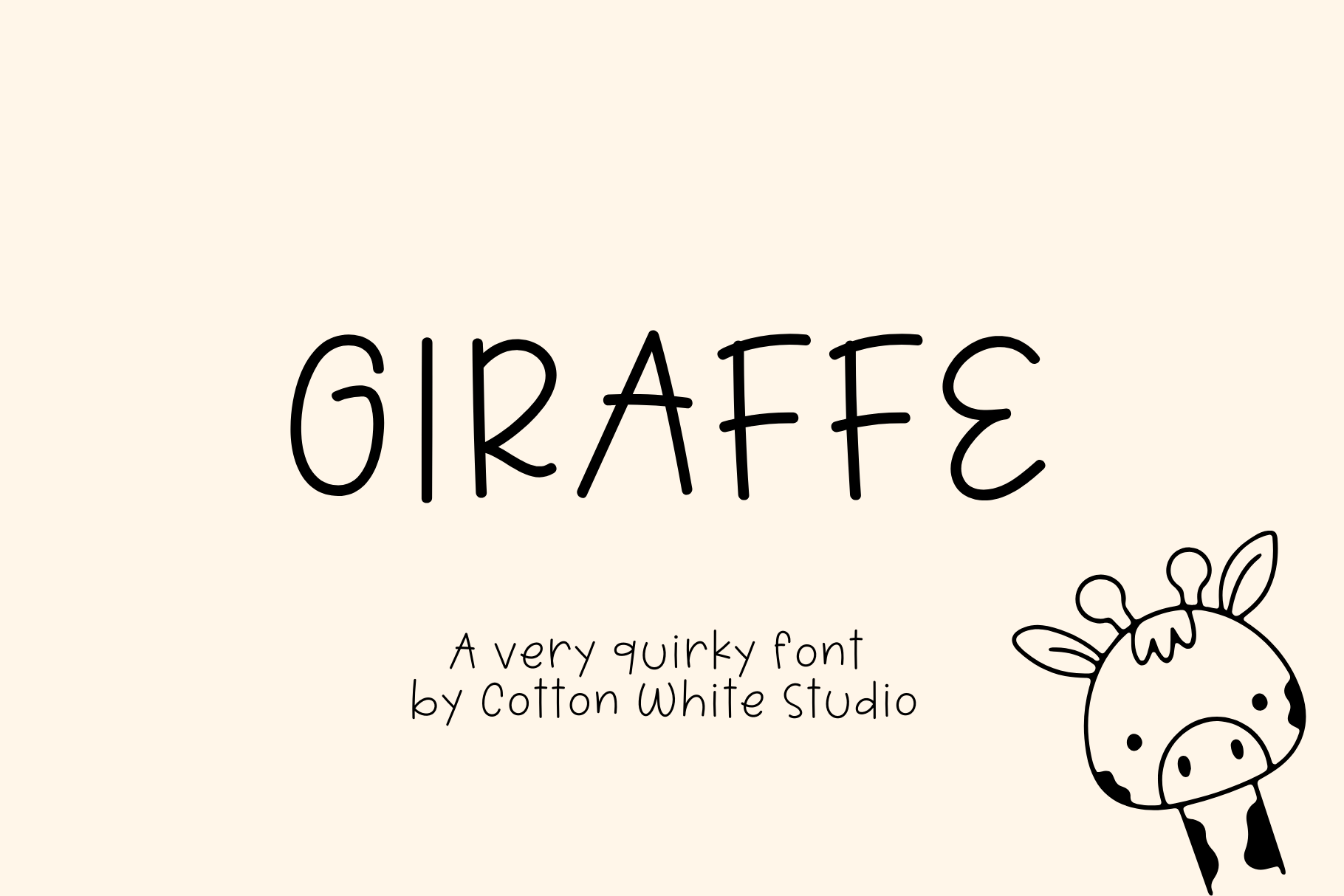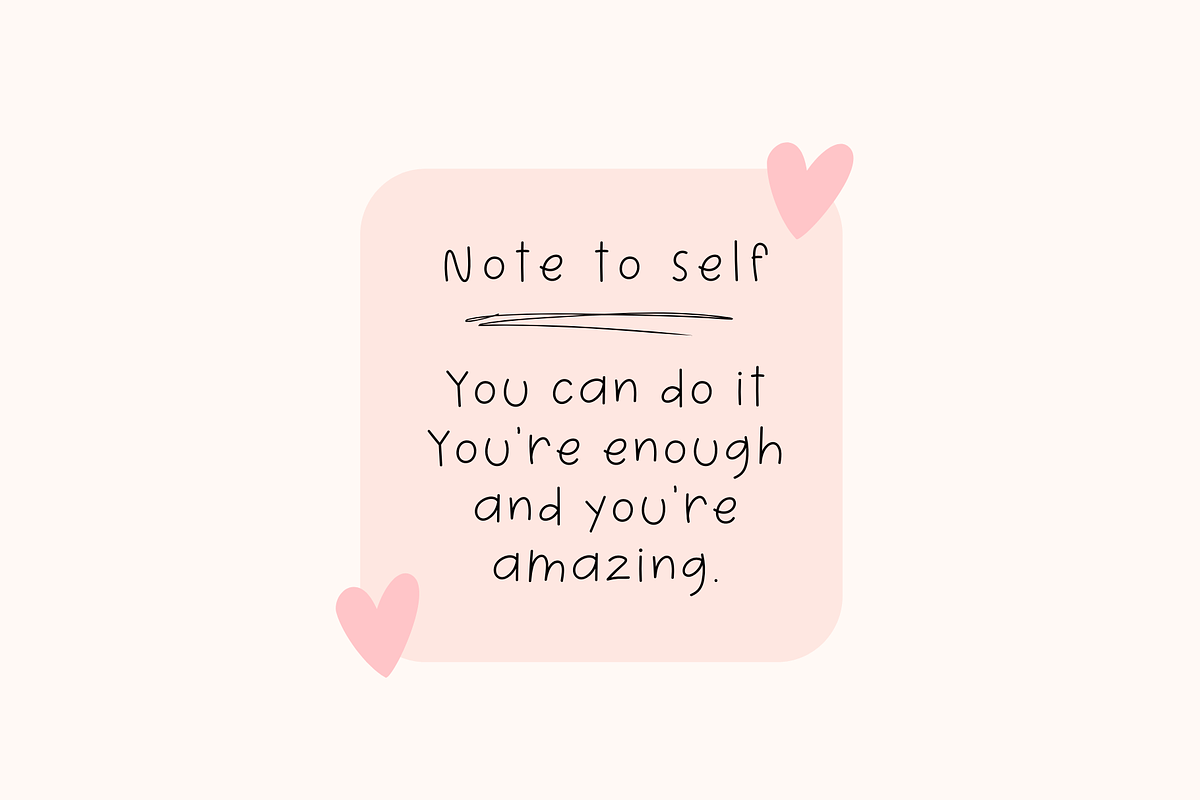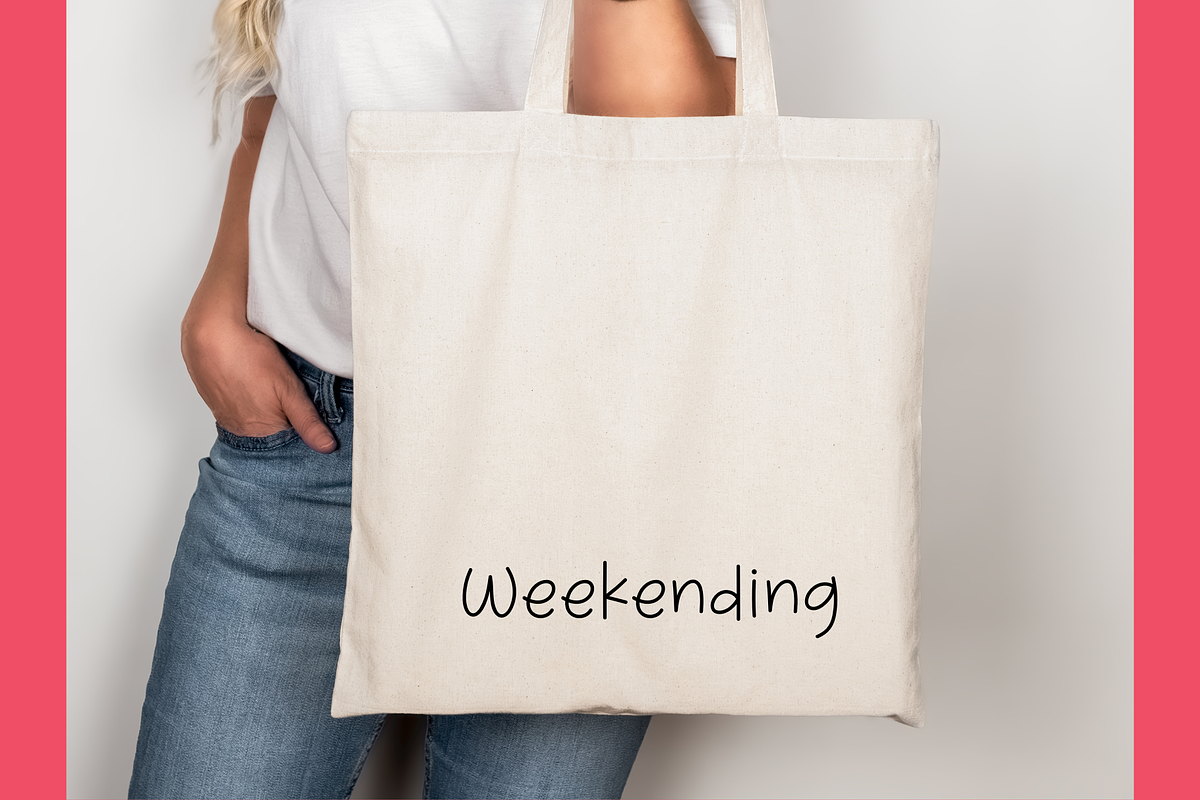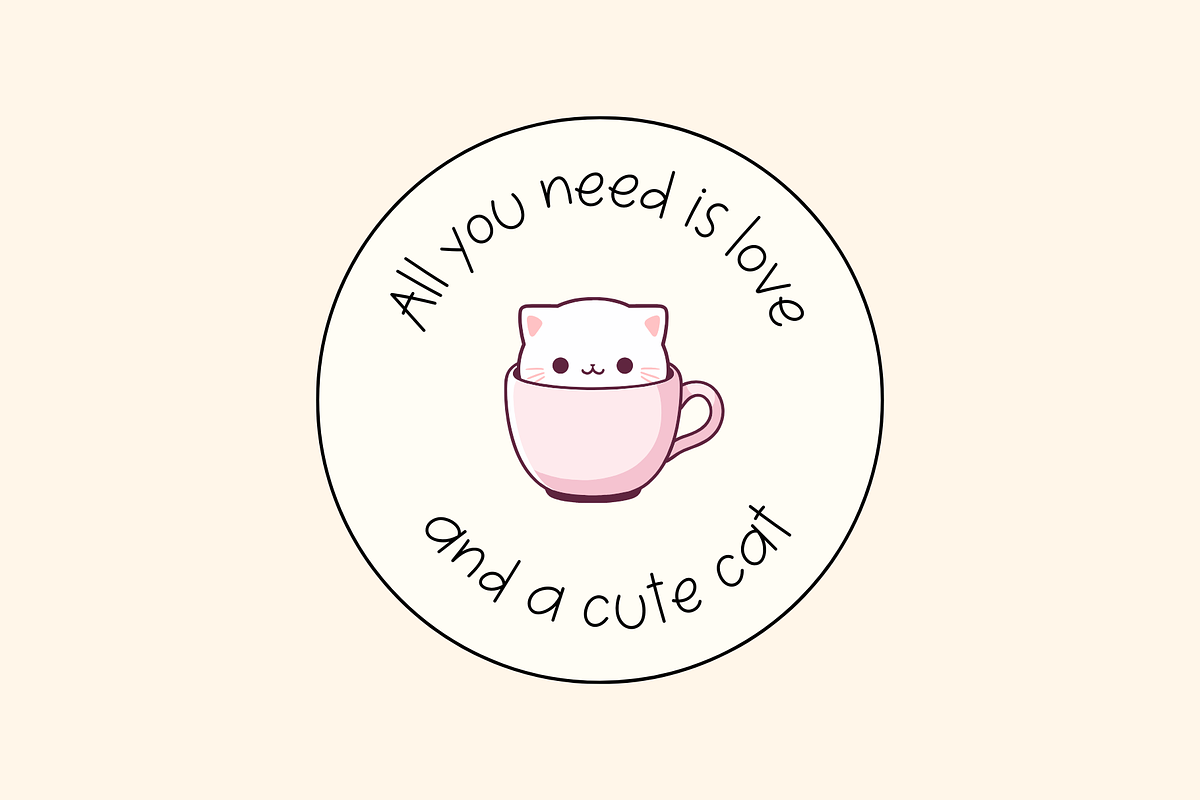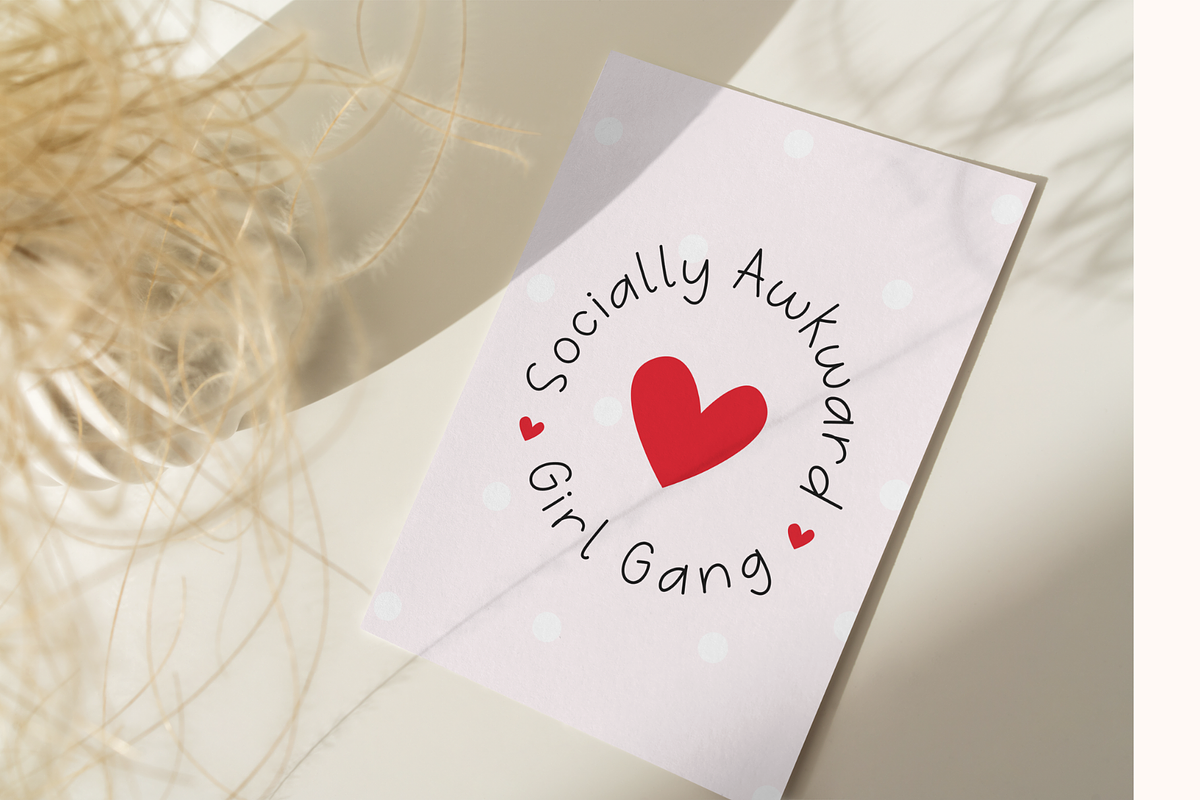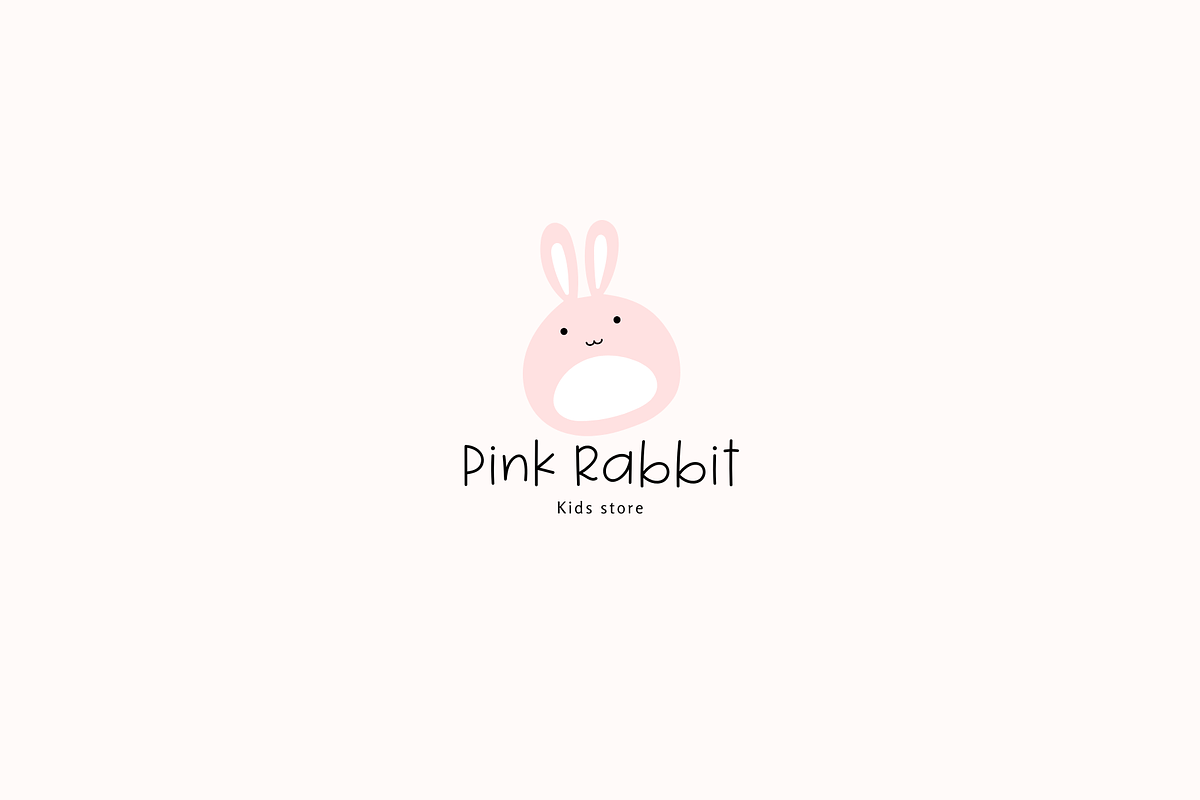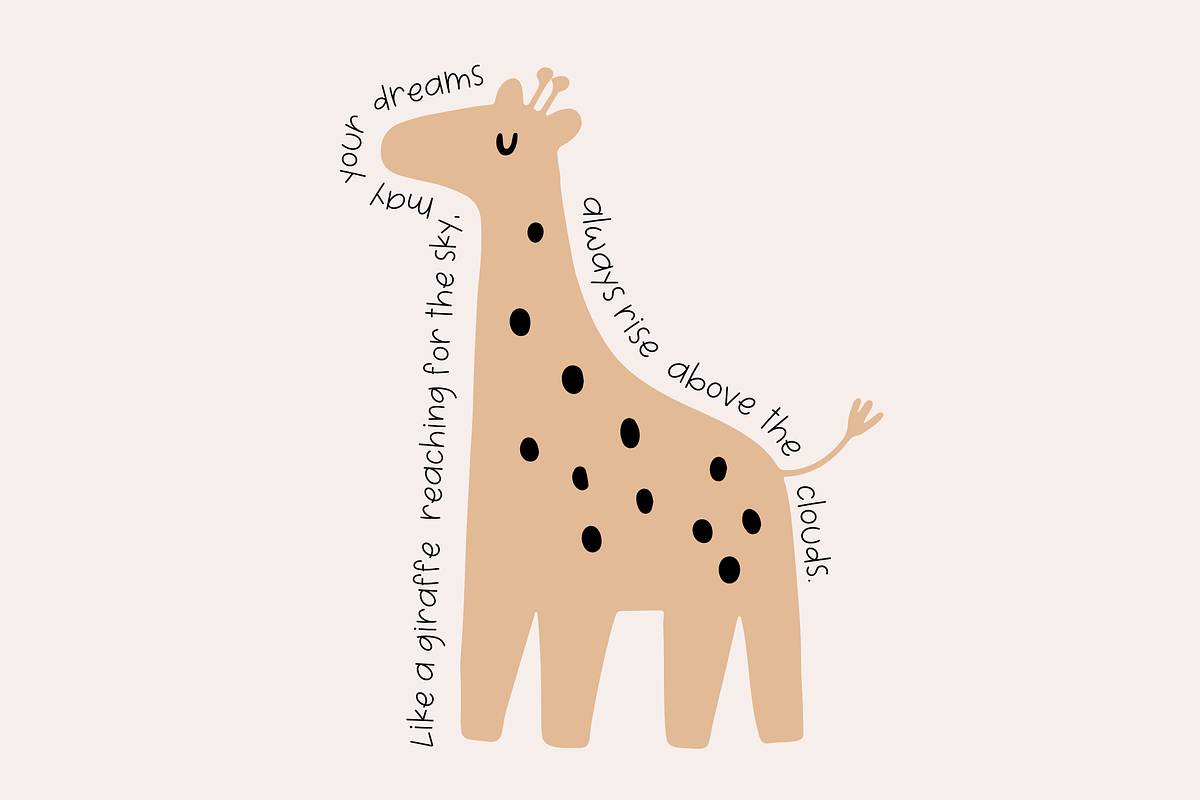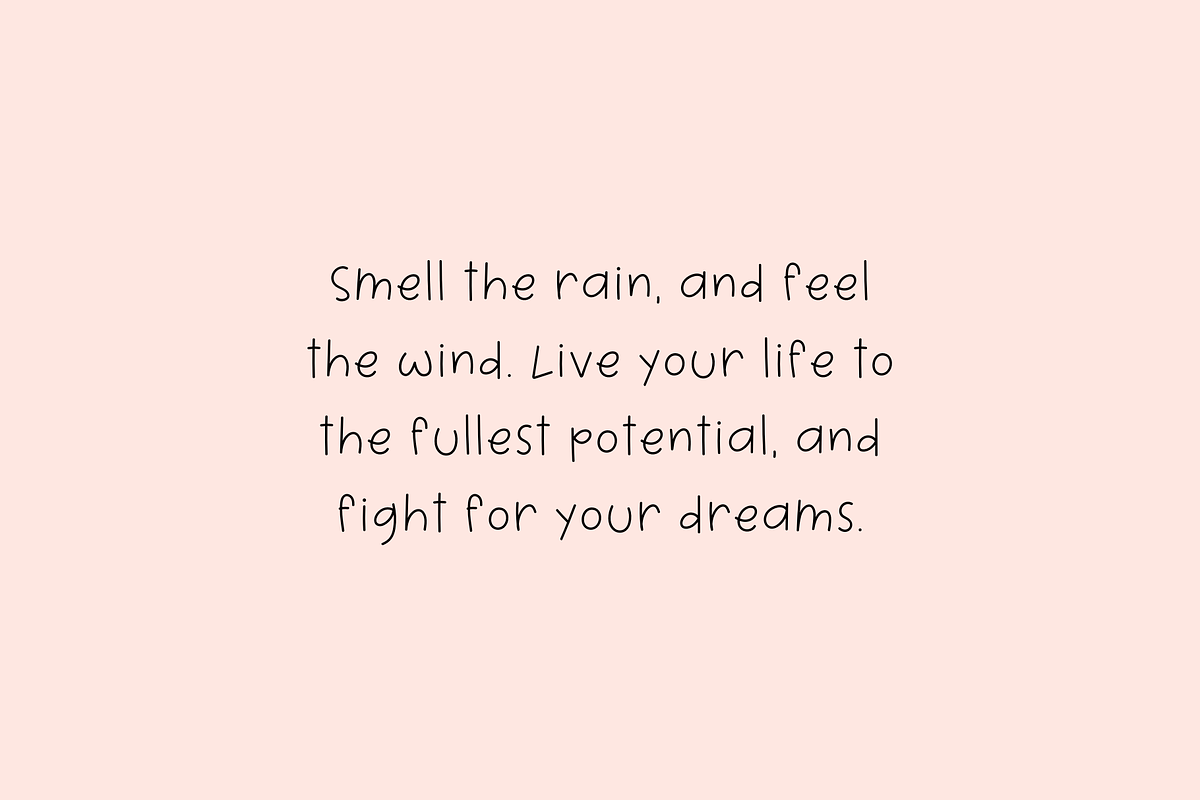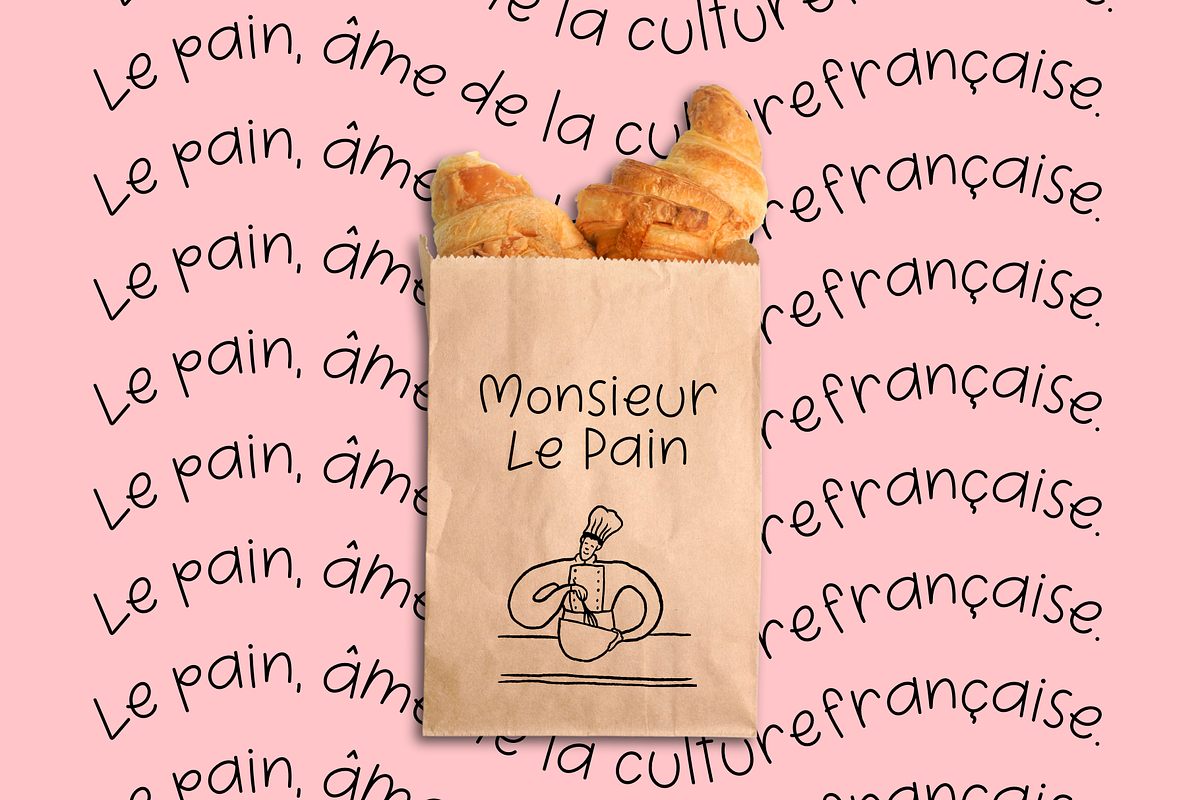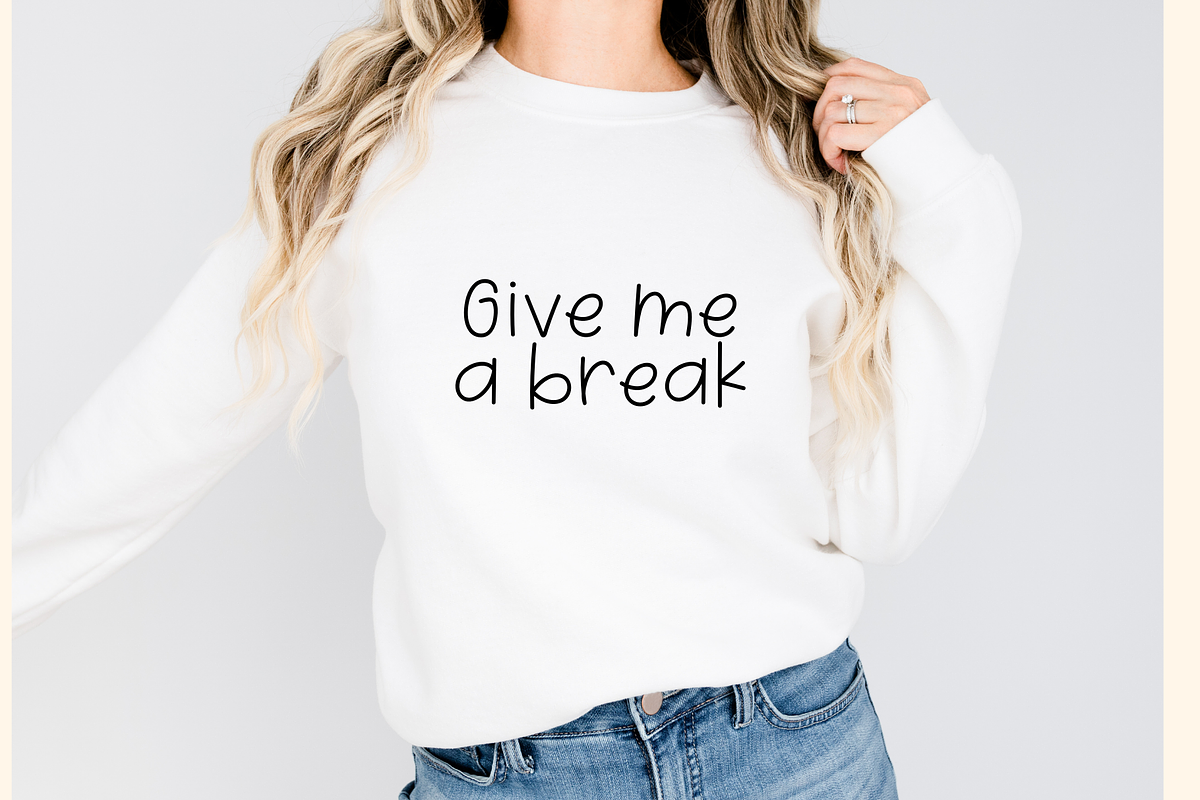
Giraffe Whimsical Font
A cute little font, perfect to jazz up your digital planner, journal, invitations, note-taking, or anything that requires a handwriting look.
Includes uppercase and lowercase letters, numbers, essential punctuation marks, and multilingual support. ❤️